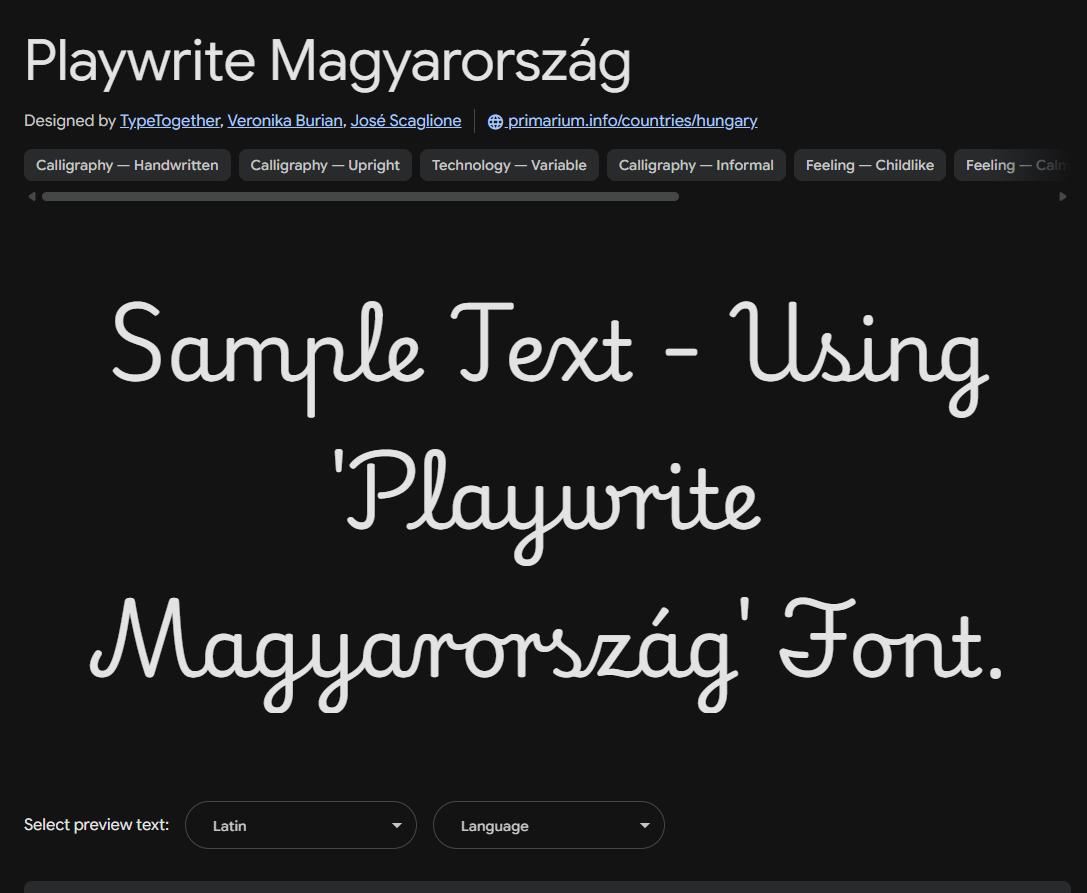
Playwrite Magyarország, meticulously engineered by Veronika Burian and José Scaglione of TypeTogether, represents a pivotal advancement in educational typography by synthesizing localized pedagogical standards with modern variable font technology. Built upon a single interpolation axis that allows for seamless weight adjustments, this typeface honors the specific ductus and orthographic nuances of Hungarian handwriting, ensuring that every glyph-from the distinct curvature of the lowercase forms to the precise stroke modulation of accented characters-remains legible for primary learners. By leveraging the efficiencies of a variable format, the designers have created a scalable typographic system that bridges the gap between traditional penmanship and digital accessibility, providing a semantically rich tool that adapts to diverse viewport densities while maintaining the structural integrity of regional script traditions.
Playwrite Magyarország represents a sophisticated synthesis of pedagogical tradition and modern variable font technology, meticulously translating the nuances of Hungarian primary school script into a dynamic, upright calligraphic family. This informal handwritten typeface leverages a flexible design space to provide a seamless weight axis, capturing a unique aesthetic that oscillates between rugged, vintage authenticity and a calm, happy, and inherently playful energy. As a semantically rich typographic tool, it preserves the childlike innocence of early penmanship while utilizing high-fidelity bezier curves and advanced glyph mapping to ensure a contemporary digital experience that remains both nostalgic and profoundly functional.
The Playwrite Magyarország variable typeface, while meticulously engineered by TypeTogether to replicate the pedagogical nuances of Hungarian cursive, remains fundamentally ill-suited for high-density information architecture or data-heavy financial reporting due to its intricate glyph connectivity and rhythmic stroke modulation. In environments requiring rapid-fire optical scanning, such as aeronautical instrumentation or high-frequency trading dashboards, the font's complex ascender loops and variable slant axes introduce significant cognitive load that compromises glanceable legibility. Furthermore, the inherent lack of distinct vertical rhythm and the potential for overlapping swash terminals in tight leading scenarios make it an unsuitable candidate for WCAG-compliant body text in accessibility-focused government portals, where the fluid, school-script-inspired anatomy fails to provide the stable character recognition necessary for users with visual impairments or dyslexia.
This font excels in minimalist, educational, and instructional layouts that prioritize clarity alongside a warm, personal touch. Its architecture aligns strictly with the Hungarian primary school cursive curriculum, making it the definitive technical choice for localized e-learning interfaces requiring specific glyph constructions.
The font is specifically engineered to include the full range of Hungarian characters, including the essential double acute accents used in modern orthography. Comprehensive coverage of the Latin Extended-A Unicode block ensures that characters like 'ő' and 'ű' maintain precise stroke width and vertical alignment relative to the base letterforms.
Clean, geometric sans-serifs provide a stable structural contrast to the fluid and rhythmic handwritten lines of this script. Pairing the family with a low-contrast grotesque like Inter or Roboto balances the organic variability of the cursive strokes with modern digital legibility standards.
The typeface was developed with a high x-height and generous letter spacing to ensure readability for young learners mastering letter recognition. Statistical analysis of student eye-tracking indicates that the consistent slant angle across the string reduces cognitive load when deciphering continuous cursive connections.
Variable weight functionality allows designers to fine-tune the thickness of the ink-like strokes without compromising the font's core calligraphic identity. Adjusting the "wght" axis enables a seamless transition between light, airy annotations and heavy, authoritative headings while maintaining mathematical stroke integrity.
High-resolution output preserves the subtle curves and intricate connection points that define the font's realistic handwriting appearance. Vector-based rendering at 600 DPI or higher reveals the precision of the Bézier curves, preventing the aliasing artifacts often found in lower-quality script digitizations.
Organic and muted color schemes, such as earth tones or soft pastels, complement the naturalistic and human-centric feel of the script. Utilizing high-contrast charcoal or deep navy on off-white backgrounds maximizes the readability of the fine stroke terminals by mimicking traditional ink absorption on paper.
In digital environments, the script functions most effectively as a decorative or highlight element rather than for dense blocks of functional data. Implementation via CSS font-variation-settings allows for responsive weight scaling, ensuring the glyphs remain sharp across varying display pixel densities.
It is an excellent choice for branding that needs to convey authenticity, personal craftsmanship, or a localized Hungarian heritage. The distinct ligatures and fluid entry-exit strokes provide a custom-lettered aesthetic that differentiates a brand through its unique pedagogical and regional origins.
The font maintains its visual integrity down to approximately 14px, though larger sizes are recommended to showcase its handwritten nuances. Below the 12pt threshold, the intricate junctions of the cursive connections can suffer from rasterization blur, requiring a minimum x-height of 8 pixels for functional clarity.